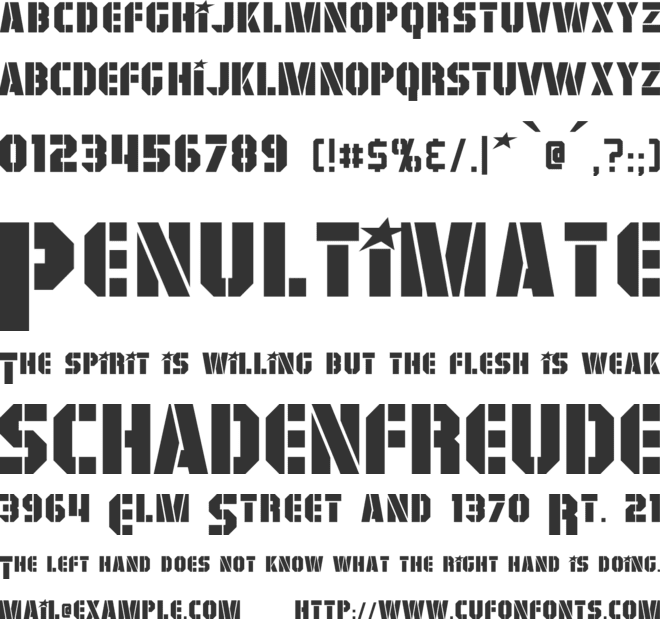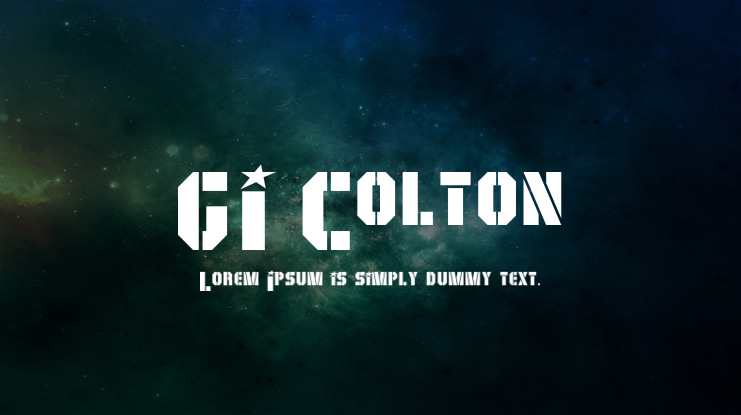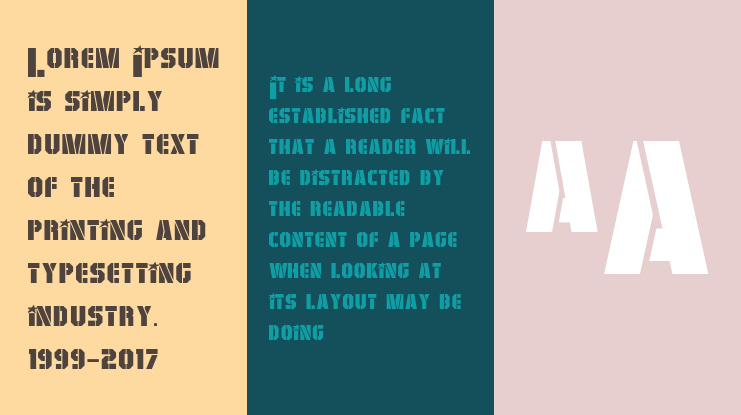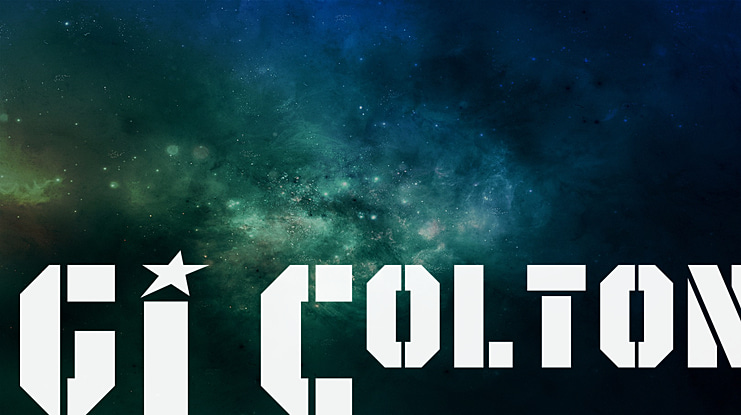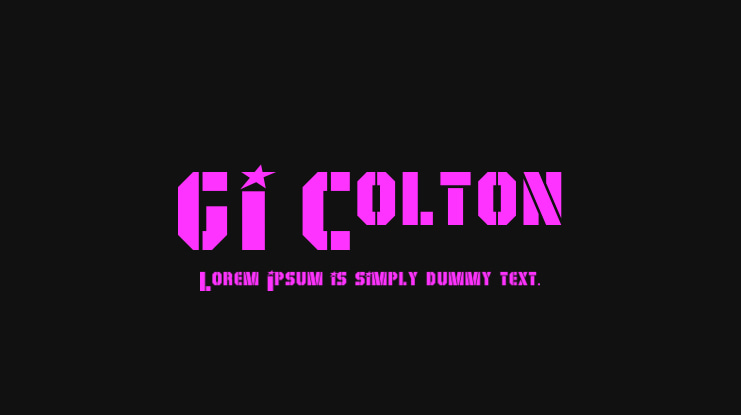
GI Colton Font Family
Neale Davidson
GI Colton is a thick, military-looking stencil font based on the title logo of IDW’s Fall of GI Joe comic line. The face has three distinct weights, one for caps, one for lower case, and one for punctuation. This font includes the full alphabet, numerals, and extended punctuation including the Euro. Includes regular and italic versions.